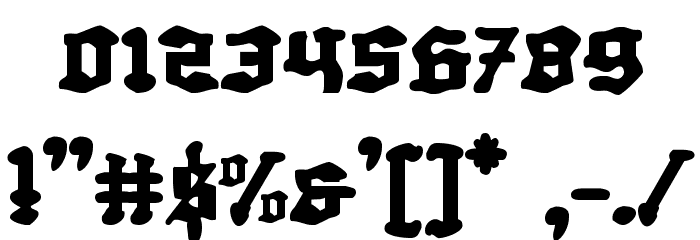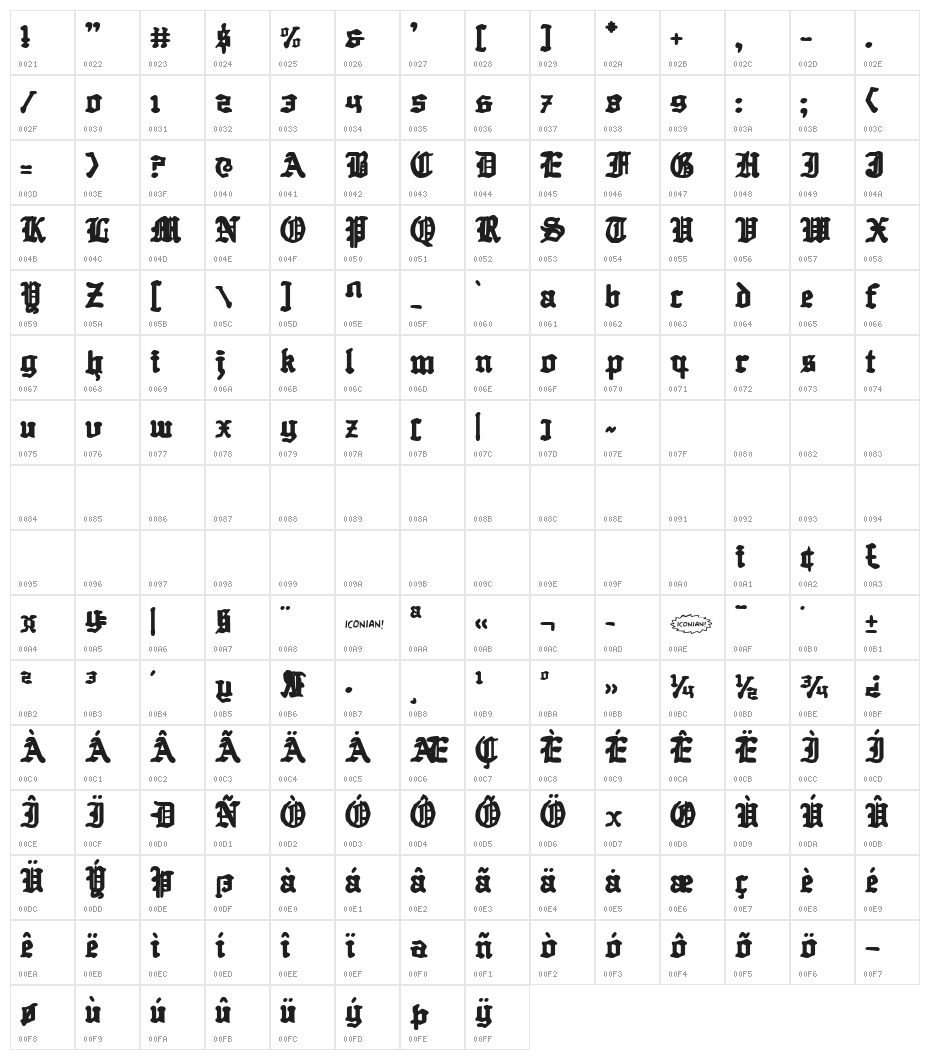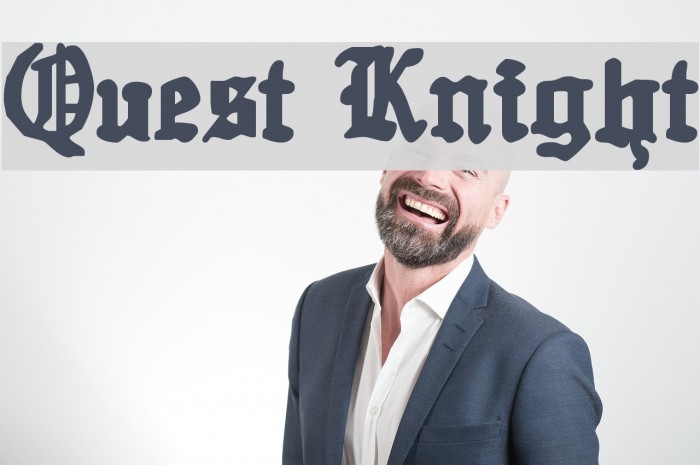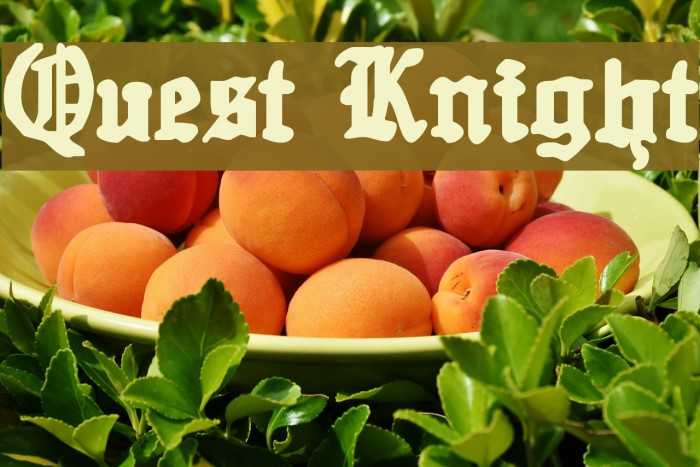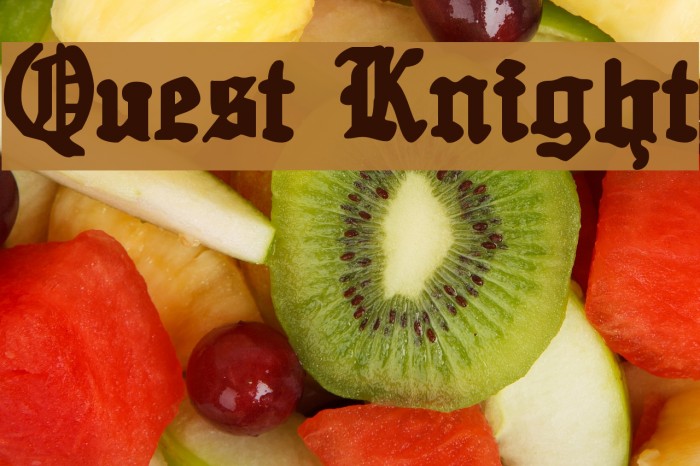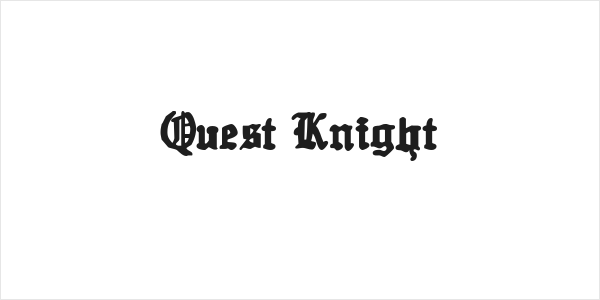
Quest Knight Font
Quest Knight Description
This font exudes a medieval and gothic aesthetic, characterized by its bold and intricate letterforms. The uppercase letters feature sharp, angular serifs and a strong presence, reminiscent of traditional blackletter styles. The lowercase letters maintain a consistent theme with a slightly more rounded approach, yet still retain the dramatic flair. Numbers and special characters are designed to match the overall gothic theme, with bold strokes and distinctive shapes. The font's heavy weight and unique style make it ideal for creating a striking visual impact.
| Overall Style | Gothic, Medieval |
| Use Case | Headlines, Logos, Decorative text |
| Proposed Projects | Ideal for fantasy-themed projects, book covers, posters, and branding that requires a medieval or gothic touch. |